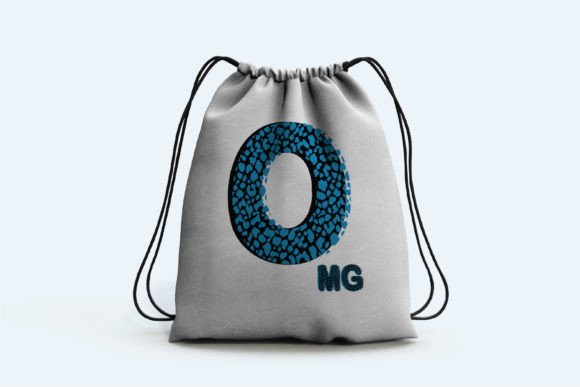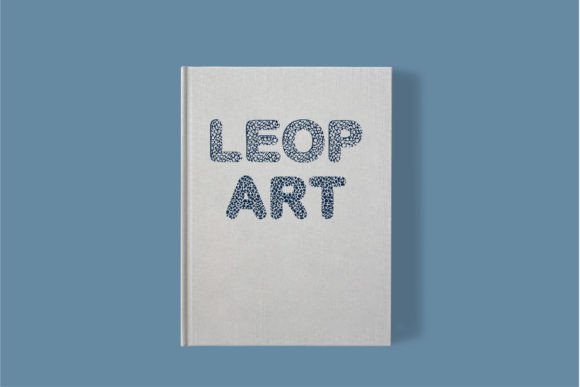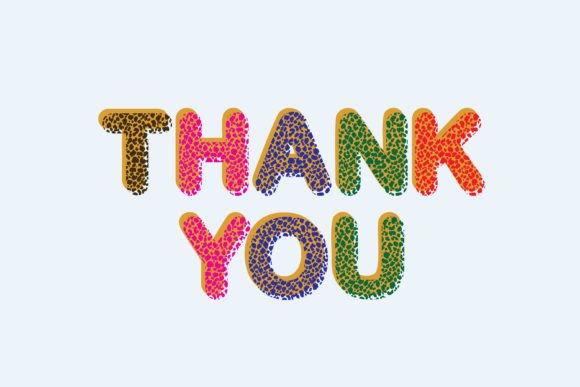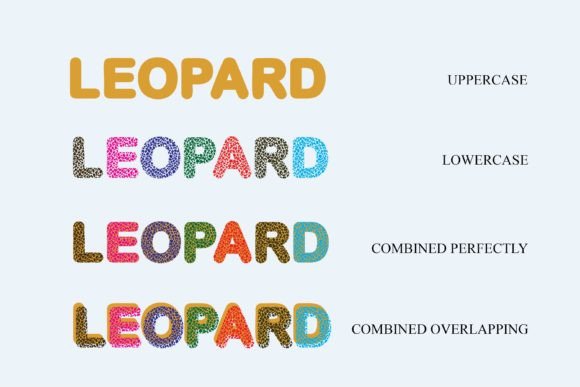
Get Ready to Roar with Creativity: Introducing Capital Leopard Font
Have you ever been brainstorming a new project and suddenly, a spark of creativity strikes, leaving you with an idea that feels like a masterpiece? That’s exactly what happened to me when I stumbled upon the Capital Leopard Font. Its playful, whimsical style is the perfect addition to any crafty idea, elevating your design to the next level.
Capital Leopard Font is a fun and creative display font designed to add a touch of excitement to your projects. Whether you’re a professional designer or a DIY enthusiast, this font is sure to bring a smile to your face and inspire your creativity. With its unique blend of modern and vintage elements, Capital Leopard Font is a valuable asset for designers looking to add some personality to their work.
Capital Leopard Font Key Features
- Font Family: A unique, high-end sans-serif font with a modern twist, ideal for luxury and high-end branding.
- Unique Characteristics: The font features a distinctive, uppercase-only design with a subtle leopard-inspired pattern, adding a touch of sophistication and elegance to any design.
Review: Capital Leopard Font
Overall, the Capital Leopard Font is a visually striking choice for headings and titles. ✨ Its bold and eye-catching design is sure to grab attention and make a statement. I particularly appreciate the unique blend of modern and vintage elements that give this font its distinct personality.
The font’s versatility is another major plus. ✨ It can be used effectively in a variety of contexts, from fashion and luxury brands to editorial and creative projects. The font’s high level of customization also makes it a great choice for designers who want to fine-tune their designs to perfection.
- Visually striking design that grabs attention
- Unique blend of modern and vintage elements
- High level of customization
- Versatile and suitable for various contexts
- May be too bold or overpowering for some designs
- Limited legibility at smaller font sizes
- May not be suitable for body text or paragraphs
Overall, the Capital Leopard Font is a solid choice for designers who want to make a statement with their headings and titles. While it may have some limitations, its unique design and versatility make it a valuable addition to any design arsenal.
The Capital Leopard Font is ideal for creating bold and eye-catching headings, titles, and logos. It’s also great for use in branding and marketing materials, such as business cards, brochures, and websites.
To get the most out of the Capital Leopard Font, use it in combination with other bold and playful fonts to create a visually appealing design. Experiment with different font sizes, colors, and alignments to find the perfect balance for your design.